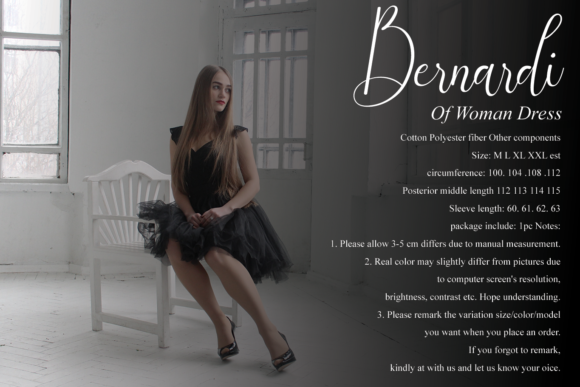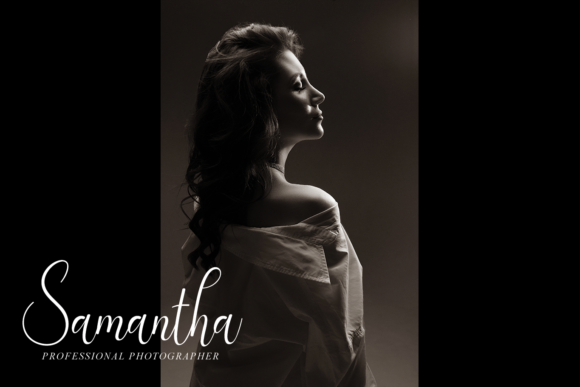
Young Girl Font
db-ku.com - Script & Handwritten -- Young Girl is a romantic and sweet calligraphy script font featuring characters that seem to dance along the baseline. It will add a luxurious spark to any creative design or project you wish to develop!